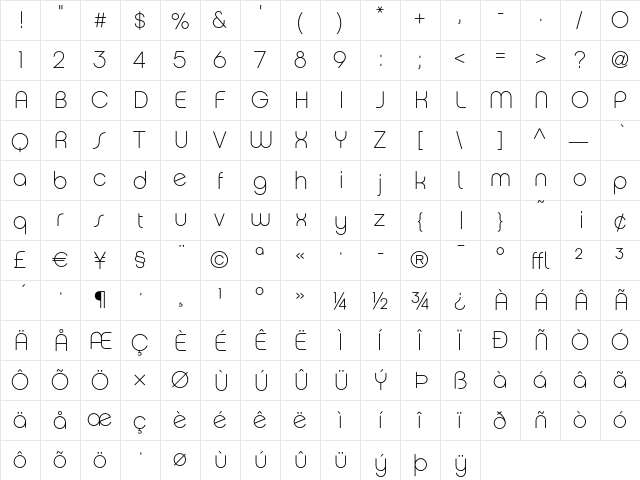
Chalet ParisNineteenSeventy Font Preview
Chalet ParisNineteenSeventy
Chalet ParisNineteenSeventy Font Details
| Style | ParisNineteenSeventy |
| Designer | House Industries |
Design Context for Chalet Typeface
Chalet is a composed and adaptable typeface that performs quietly and consistently across a wide range of design contexts.